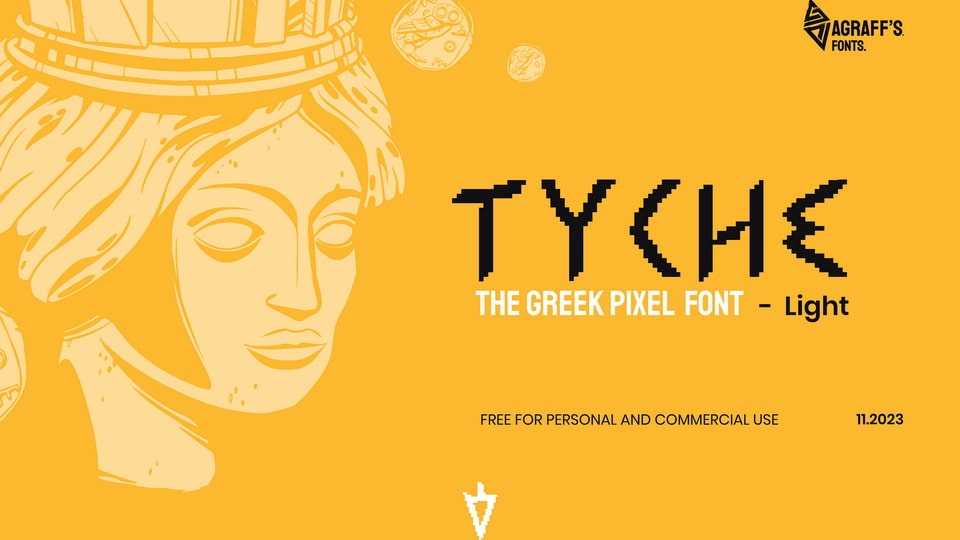
Download Tyche fonnt, a Greek-style pixel display typeface. Named after the powerful goddess of fortune, this limited character set is perfect for any design linking antique themes in modern media.